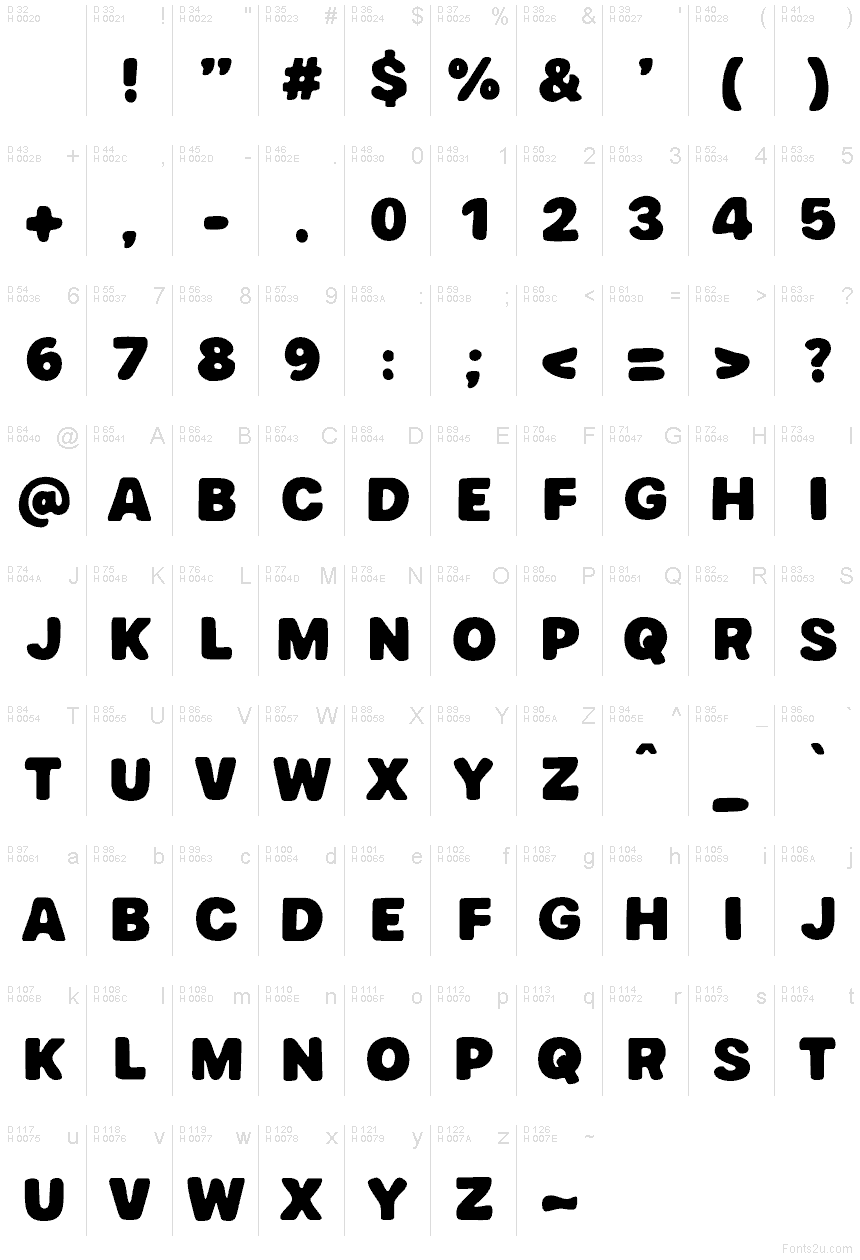
Fish Crispy
Fish Crispy font by MJType is a cartoon-style display font that effortlessly captures attention. With its bold weight, retro aesthetic, smooth curves, and friendly appearance, it creates cheerful and youthful lettering. Letters are rendered in uppercase and are noticeably wide with frequent curves whether they’re letters with round shapes or not.